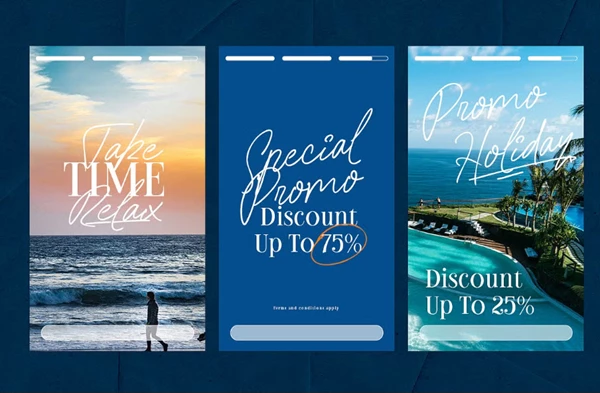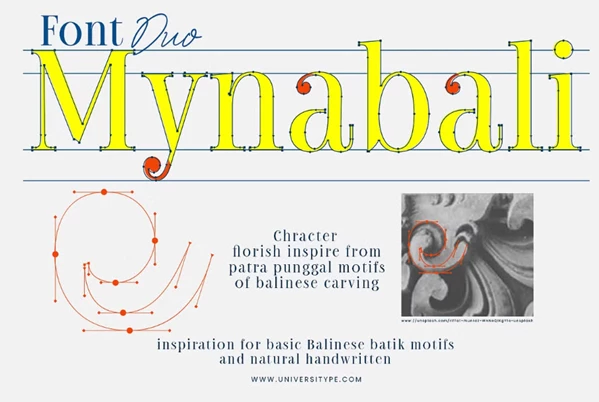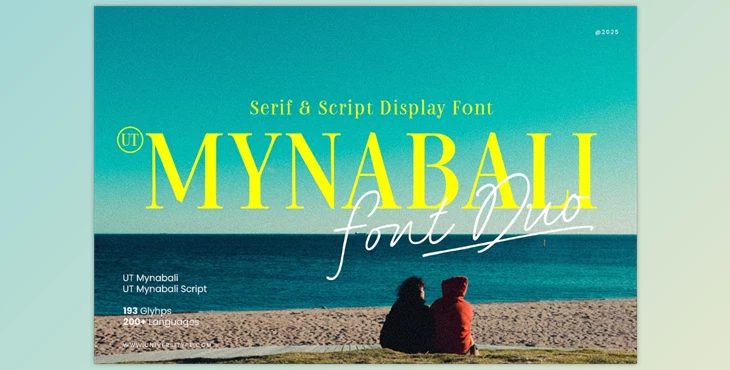
UT Mynabali Font Duo:
Mynabali font is inspired by the rich intellectual artistry of Balinese culture. ''UT Mynabali Font Duo'' is the most appropriate title to describe this font. The compound of a big serif and an expressive script that flows level gives it elegance while capturing its sophisticated balance of warmth. This font duo is ideal for advanced branding, editorial layouts, graceful invitations, and other timeless designs. With this, every design project will merge with contemporary tradition.
"UT Mynabali Font Duo" Samples: